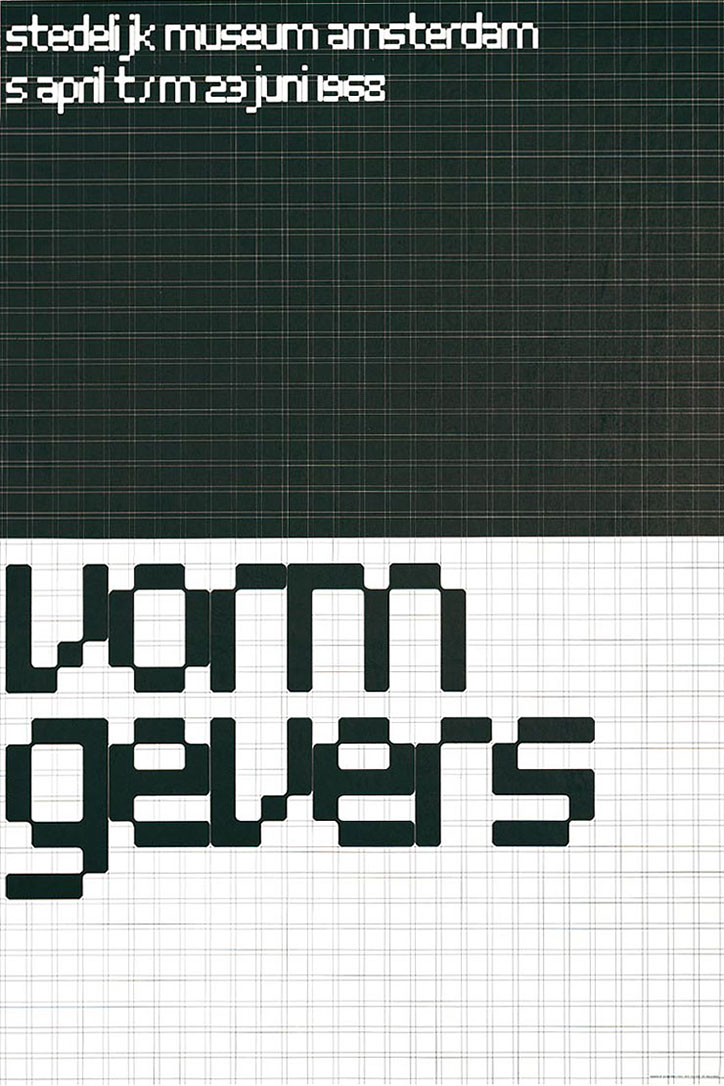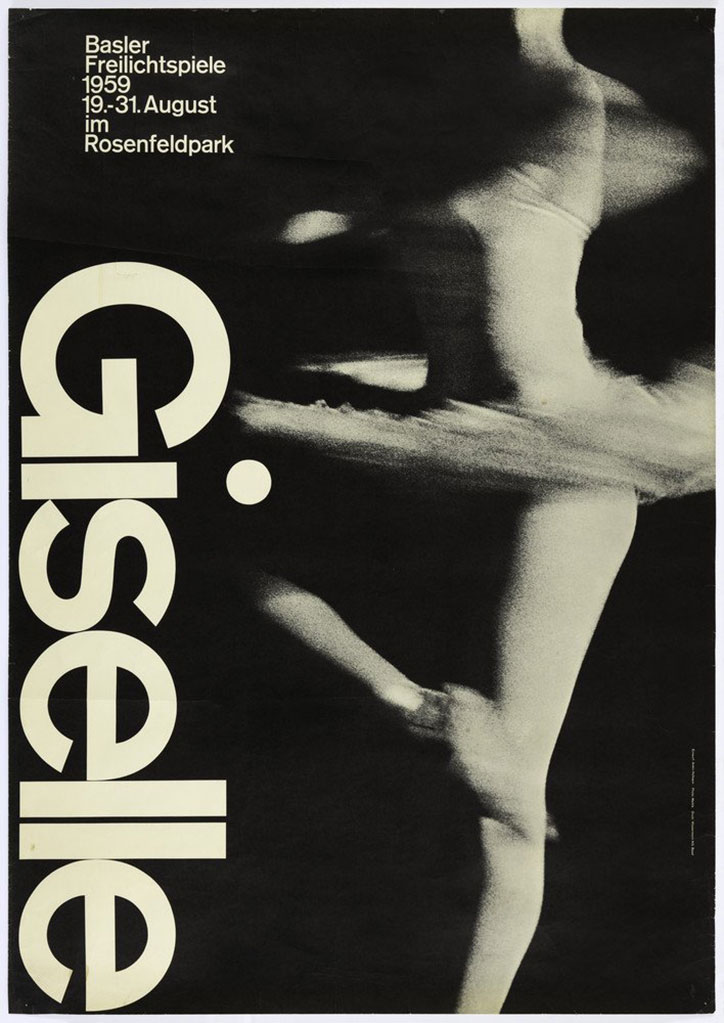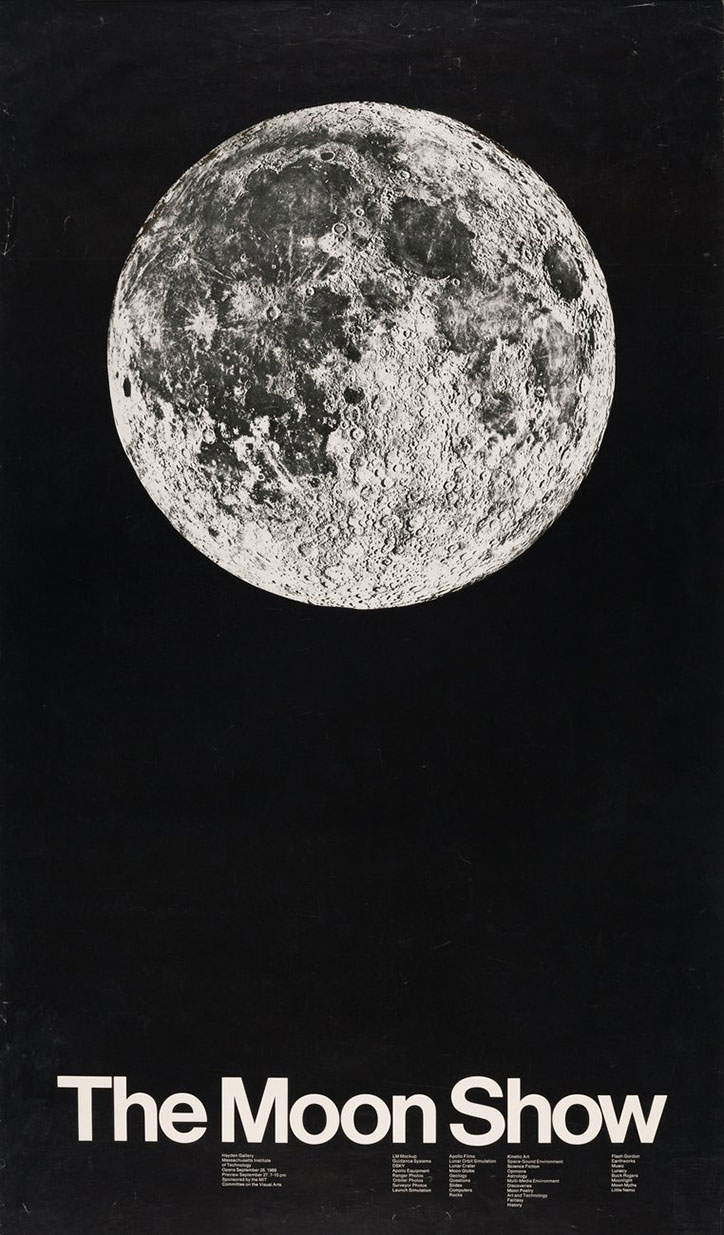
Stefan Sagmeister and Wim Crouwel feature in Typeface to Interface show at reopened SFMoma
Stefan Sagmeister: poster for AIGA Detroit, 1999. Photography: Tom Schierlitz
Stefan Sagmeister’s wince-inducing poster for AIGA Detroit and a robotic drawing machine by Jürg Lehni form part of an exhibition at the newly reopened SFMoma (San Francisco Museum of Modern Art).
The exhibition, Typeface to Interface, charts the evolution from analogue to digital in graphic design and typography since 1950. It spans from the Giselle Ballet, Basel lithograph poster by Armin Hofmann from 1959 — a notable example of Swiss Style with its combination of soft photographic imagery and bold type — and Jacqueline Casey’s The Moon Show from 1969; to Viktor, a robotic chalk-drawing machine by Jürg Lehni.
Stefan Sagmeister’s poster for an AIGA Detroit lecture, for which Stefan famously had an intern cut all the type into his skin to “visualise the pain that seems to accompany most of our design projects” is featured alongside ZS Letters (3D) by visual artist Tauba Auerbach, an Apple Macintosh from 1984, and a poster by Wim Crouwel for the Stedelijk Museum’s Vormgevers exhibition in 1968. The show also features the 1972 New York subway guide by Massimo Vignelli, and mid-century posters for typewriter company Olivetti.
The exhibition is drawn from the works in the museum’s permanent collection, anchored by a major gift from graphic designer and collector Aaron Marcus, exploring important examples of communication tools that have shaped our relationship with graphic design.
The museum reopened last weekend with a newly designed visual identity by SFMoma’s own design studio, led by design director Jennifer Sonderby. The building has a major new extension designed by architecture firm Snøhetta.
Wim Crouwel: poster for Vormgevers exhibition at Stedelijk Museum, 1968.
Armin Hofmann: Giselle Ballet, Basel lithograph poster, 1959. SFMOMA collection. Photo: Katherine Du Tiel.
Jacqueline Casey: The Moon Show 1969. Gift of Aaron Marcus. Photo: Don Ross
SFMOMA: new identity
Snøhetta: extension to the SFMOMA. Photo: Henrik Kam